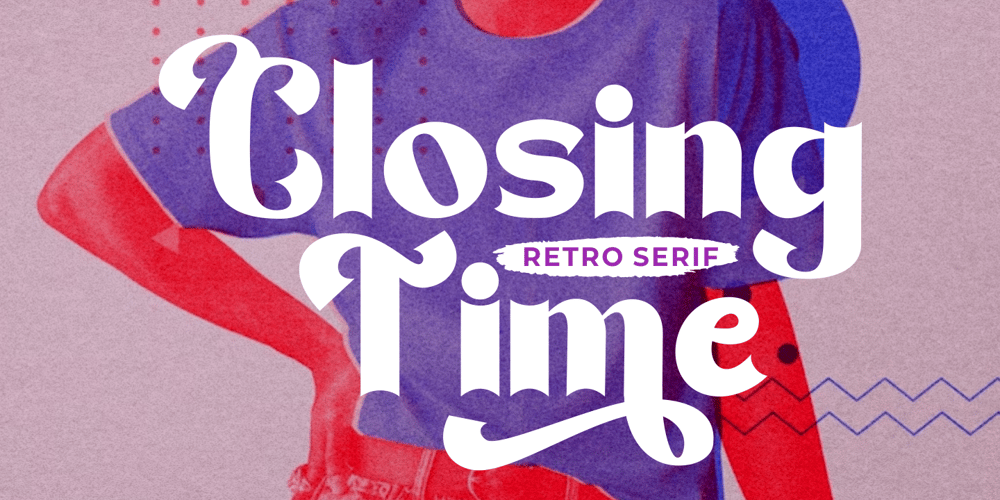
Closing Time
Closing Time font
Closing Time Font Family was designed by Putra Novembria Candra Kusuma and published by Putracetol. Closing Time contains 2 styles and family package options. Closing Time – Display Retro Font takes you on a nostalgic journey to the charming days of classic design. This font is the epitome of retro and classic aesthetics, with its distinctive features and timeless appeal.The font boasts a perfect blend of retro and classic elements, achieved by slightly curving the font’s edges inward. It offers two distinct versions: a clean variant for a polished look and a textured one for added character. Moreover, it provides alternative characters to infuse a touch of uniqueness and creativity into your designs.Closing Time – Display Retro Font is the ideal choice for logos, invitations, packaging, posters, titles, businesses, greeting cards, magazines, and any design projects that seek to capture the essence of retro and classic themes.Embrace the nostalgia and timeless charm of Closing Time – Display Retro Font, and let your designs tell a story of a bygone era.